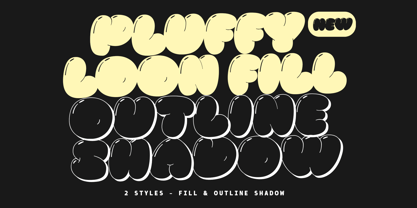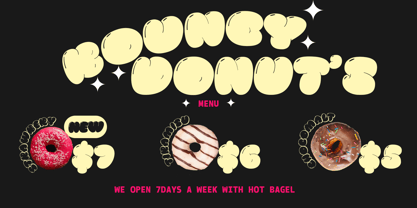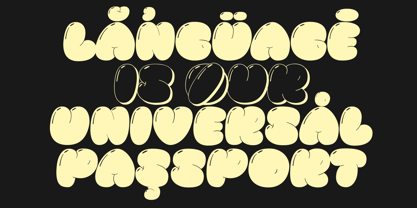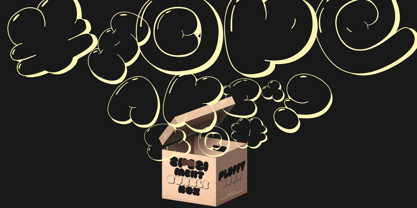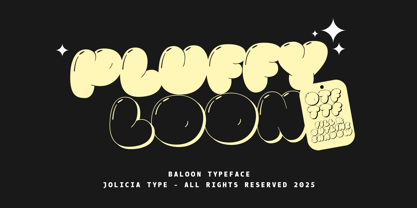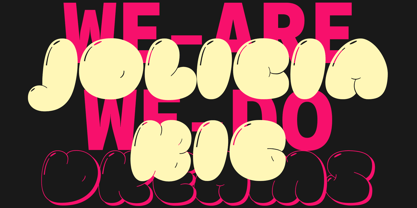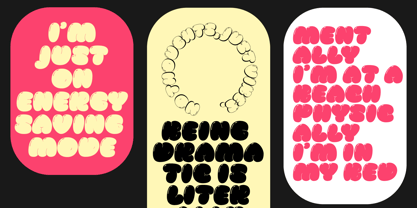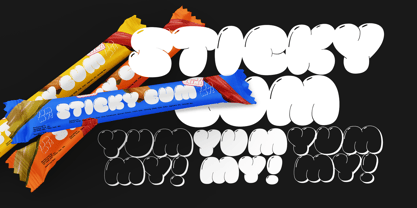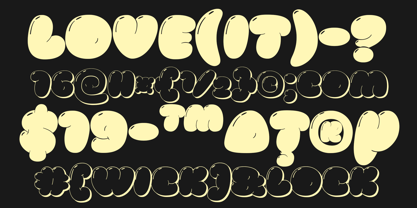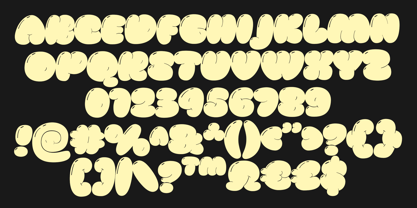
Pluffy Loon
Die Schriftfamilie Pluffy Loon wurde von Laire Banyu entworfen und von Jolicia Type veröffentlicht. Pluffy Loon enthält 2 Stile und Familienpaketoptionen. Mehr über diese Familie
Pluffyloon is a bold, playful balloon-style font that's full of life and imagination. Each letter is crafted to look like an inflated balloon, complete with shiny highlights that create a fun, three-dimensional effect — just like a real helium balloon ready to float!
Pluffyloon comes with 2 styles:
Fill — a solid, bold balloon style
Outline Shadow a fun outlined version with a playful shadow
Features:
Includes 380 glyphs, covering uppercase letters, numbers, punctuation, and extra symbols
Supports 90 languages (Western Europe, Central Europe, South-Eastern Europe, and Basic Latin)
Round, full, and happy letter shapes perfect for children's invitations, birthday party posters, toy branding, playful packaging, and any project that needs a joyful touch
Detailed highlight accents on each character for a lively, glossy balloon effect
Ideal for fun, cartoon, creative branding, event designs, and more!